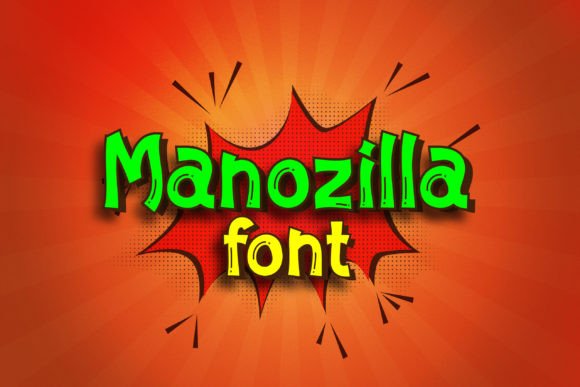
Embark on an enchanting typographic journey with Manozilla, a whimsical display font that sparks imagination and adds a touch of cartoonish delight to your creative projects. Manozilla's enchanting characters dance and twirl, captivating your audience with their playful charm. Its unmistakable cartoon vibe breathes life into titles, book covers, t-shirt designs, movie titles, cartoon templates, posters, and more, making it an ideal choice for those seeking a playful and expressive font style.
Indulge in Manozilla's rich collection of 96 glyphs and 95 characters, each meticulously crafted to evoke a sense of joy and wonder. Experience the magic of this decorative font as it transforms your designs into whimsical masterpieces. Let Manozilla's carefree spirit elevate your creativity, taking your projects to new heights of imagination.
Step into a realm of limitless possibilities with Manozilla. Whether you're a seasoned designer or just starting your creative adventure, this captivating font is your perfect companion. Its user-friendly nature ensures that even beginners can effortlessly incorporate Manozilla's charm into their projects.